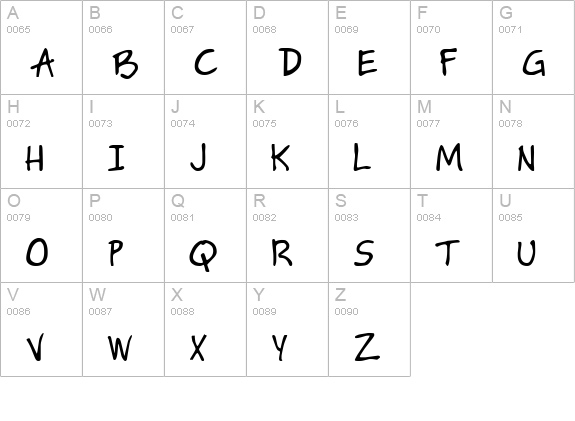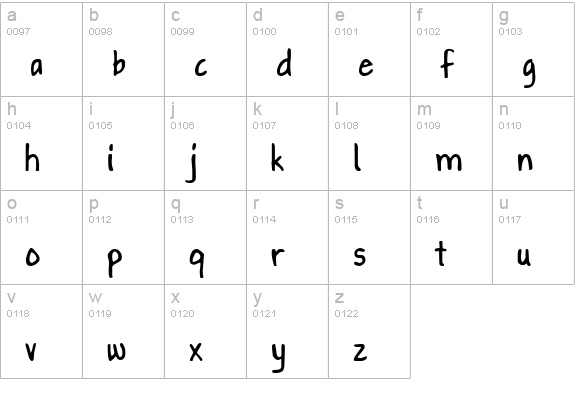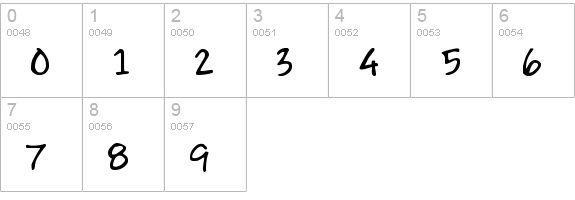
Gapstown Small AH Font Details
Introducing Gapstown Small AH font, a delightful and versatile typeface that effortlessly combines elegance with playfulness. This exquisite font is perfect for adding a touch of sophistication to any creative project, whether it be branding, invitations, posters, or even web design. Gapstown Small AH font features a unique blend of clean lines and intricate details, resulting in a truly captivating aesthetic. Its small caps variation adds an extra layer of refinement, making it an ideal choice for headings, subheadings, and other prominent text elements. But what truly sets Gapstown Small AH font apart is its commitment to accessibility. In an effort to make this extraordinary typeface available to a wider audience, it is offered completely free of charge. That's right, you can download Gapstown Small AH font without any cost or limitations at FontsMarket.com. With its wide range of glyphs and extensive language support, Gapstown Small AH font ensures that your messages can be conveyed in any language, transcending cultural barriers. Its versatility is further enhanced by the inclusion of various stylistic alternates, allowing you to personalize your designs and truly make them your own. Whether you're a professional designer or a creative enthusiast, Gapstown Small AH font is a valuable addition to your typographic toolbox. Its timeless appeal and effortless legibility will captivate your audience and leave a lasting impression. So don't wait any longer – unleash your creativity and download Gapstown Small AH font for free at FontsMarket.com. Elevate your designs to new heights and embark on a typographic journey that is both visually stunning and accessible to all.